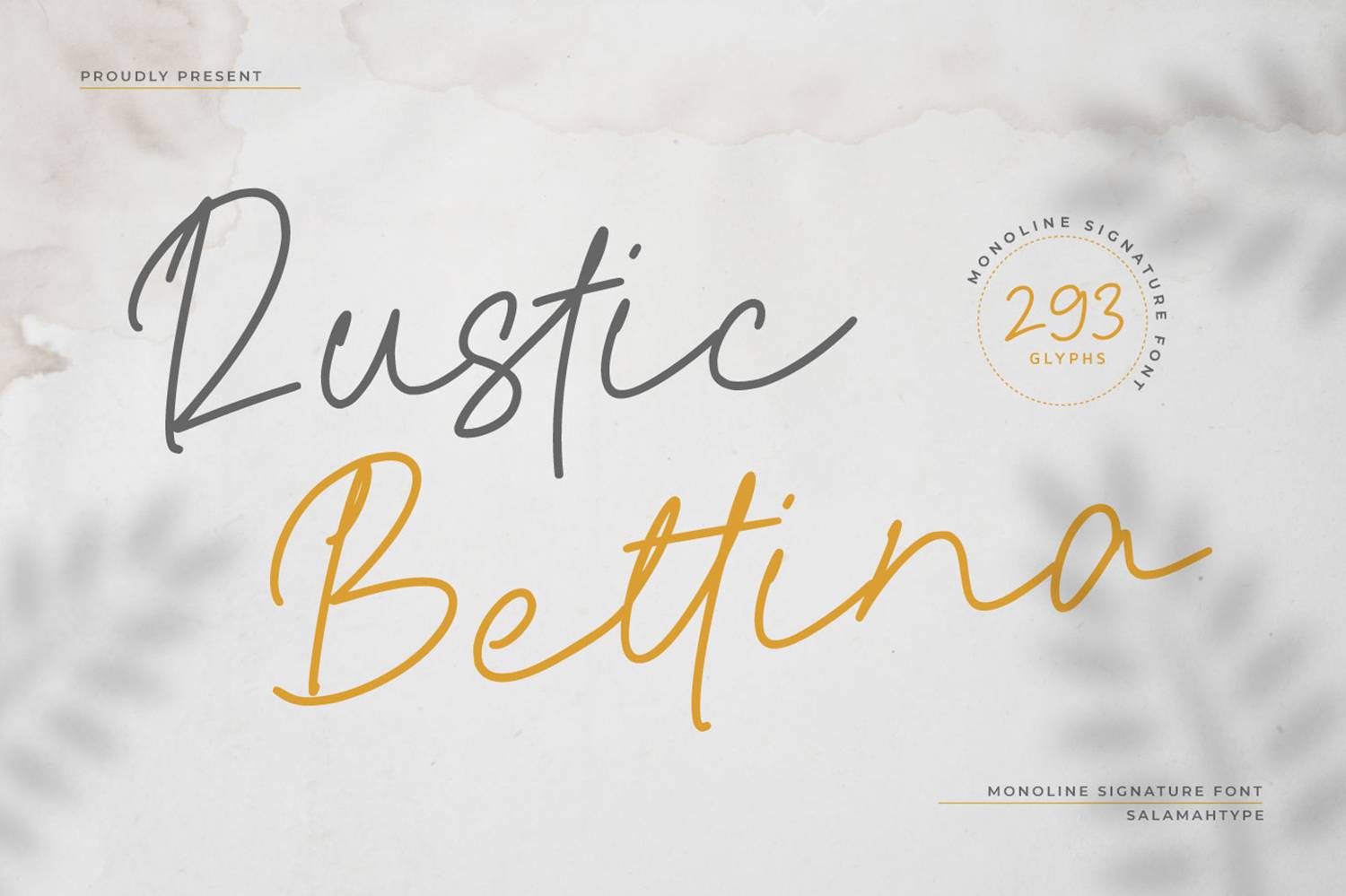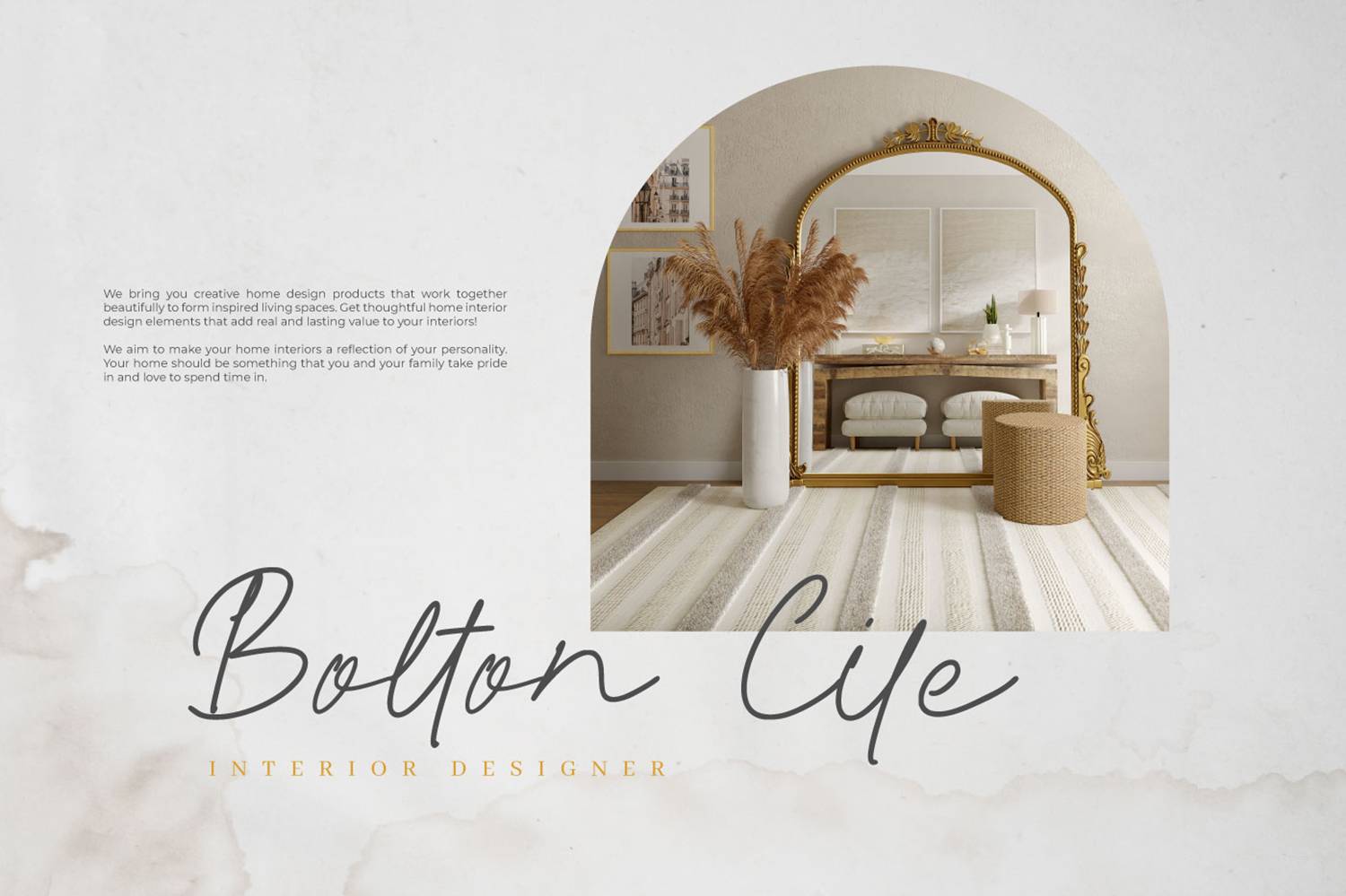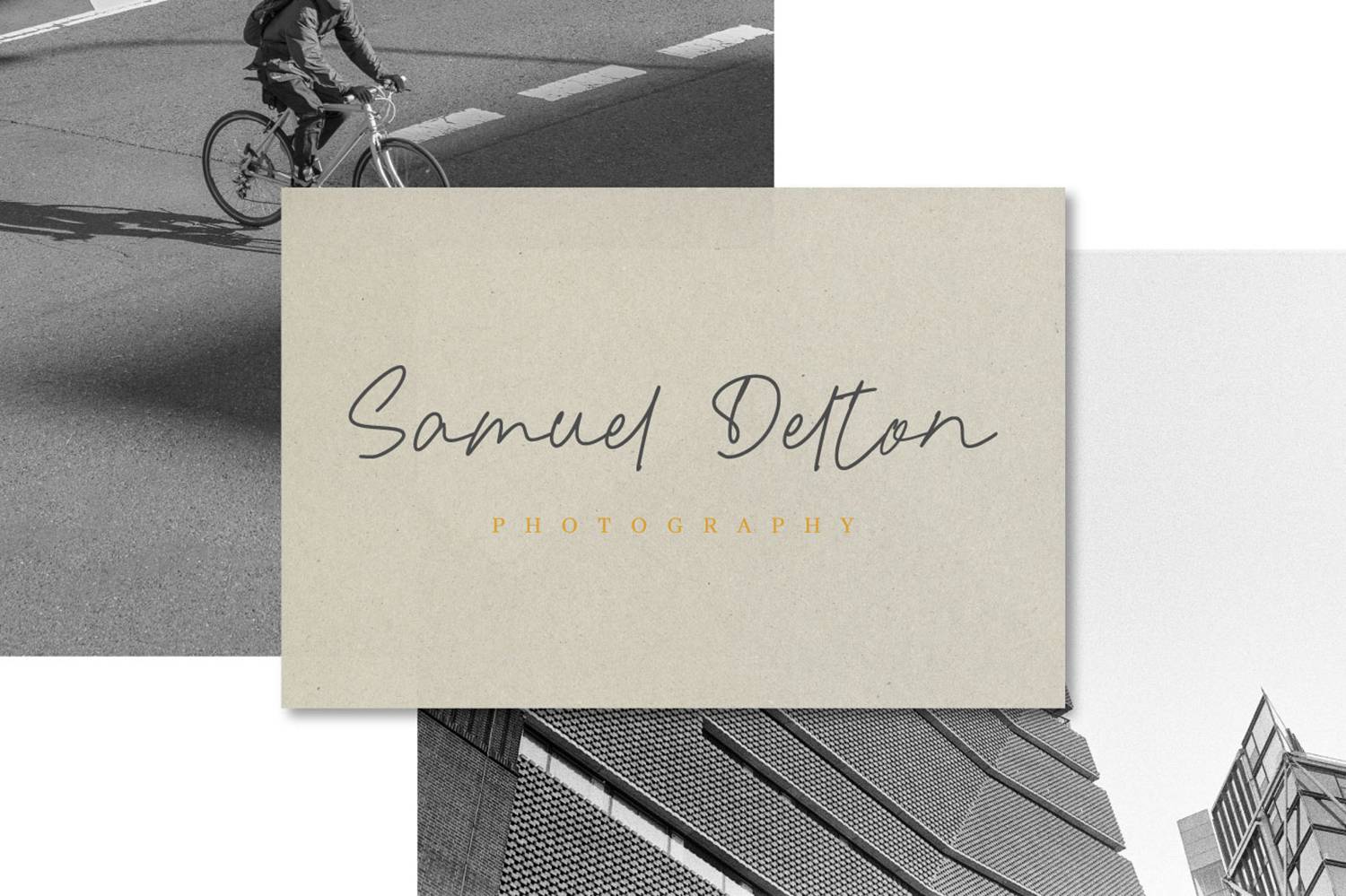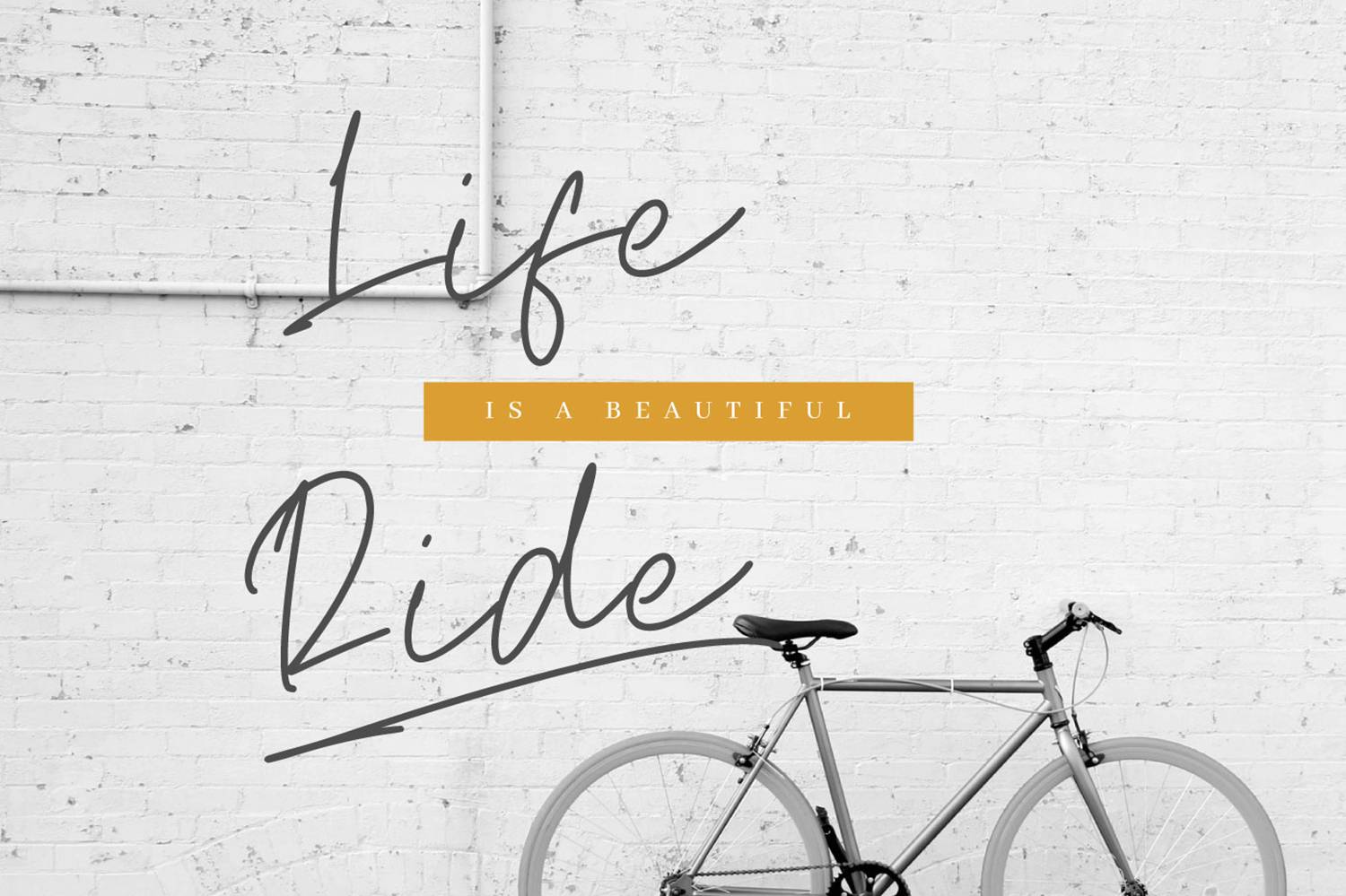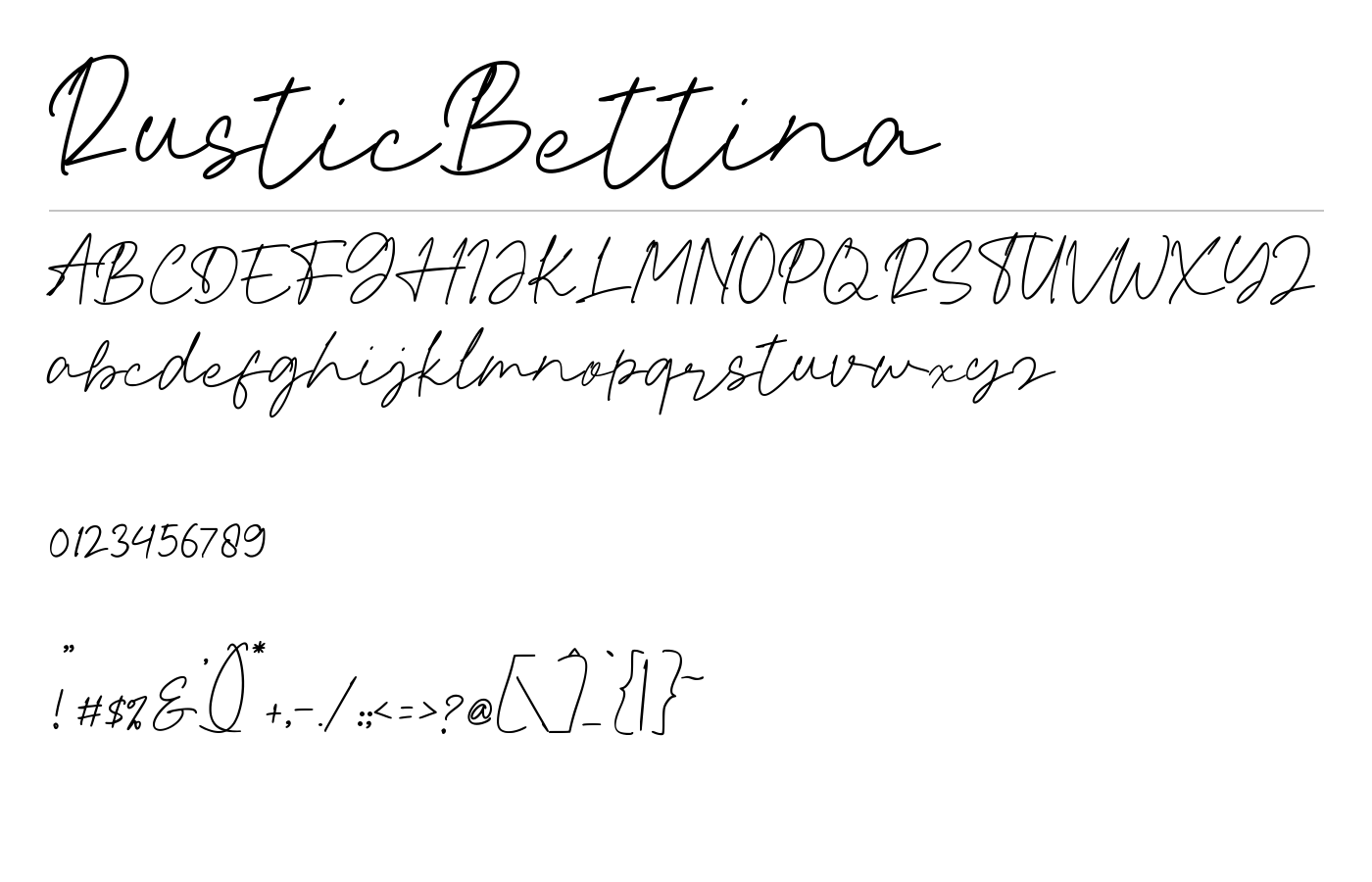
Rustic Bettina is a delicate, handwritten script font with a light weight and natural flow, featuring slender, slightly irregular strokes that give it an organic and personal feel. Its tall x-height and casual letterforms make it perfect for creative projects seeking an elegant yet approachable style, ideal for invitations, branding, and editorial use where warmth and individuality are desired.
Rustic Bettina Font
About Rustic Bettina Font